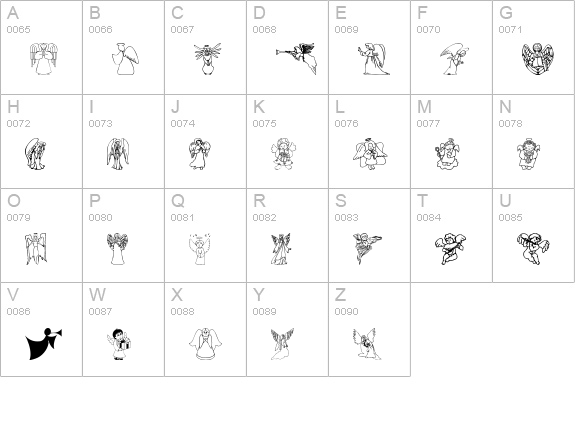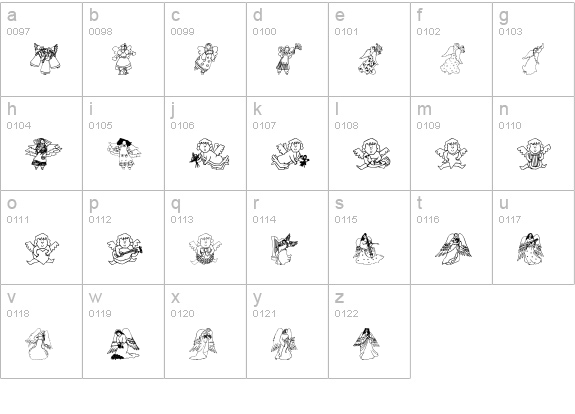
Angel'Os 1 Font Details
Angel'Os 1 is a stunning and elegant font that exudes a sense of grace and sophistication. With its delicate curves and graceful strokes, this font is perfect for adding a touch of charm to any design project. Its timeless appeal makes it suitable for a wide range of applications, from wedding invitations to branding materials. What sets Angel'Os 1 apart is not just its beauty, but also the fact that it is available for free. Yes, you read that right – this exquisite font can be downloaded at no cost from FontsMarket.com. Whether you're a professional designer looking to enhance your projects or a hobbyist seeking to add a touch of elegance to your personal creations, Angel'Os 1 is the perfect choice. Download it today and start creating enchanting designs that will captivate your audience.